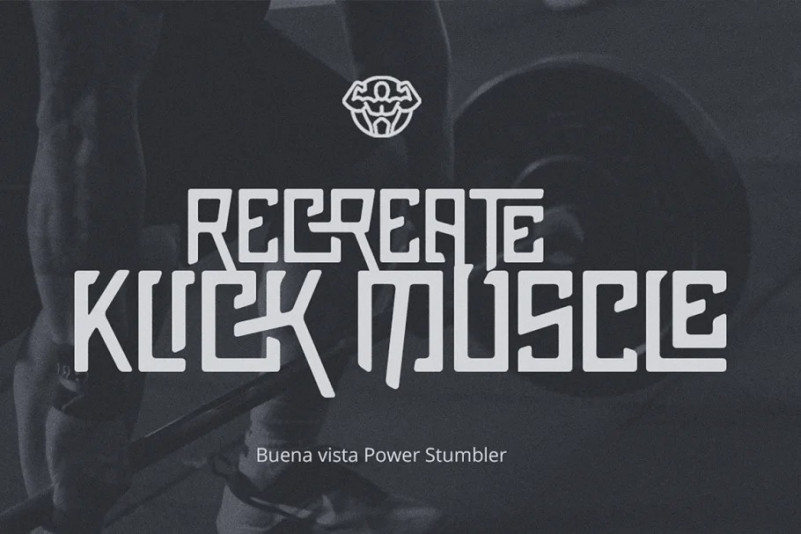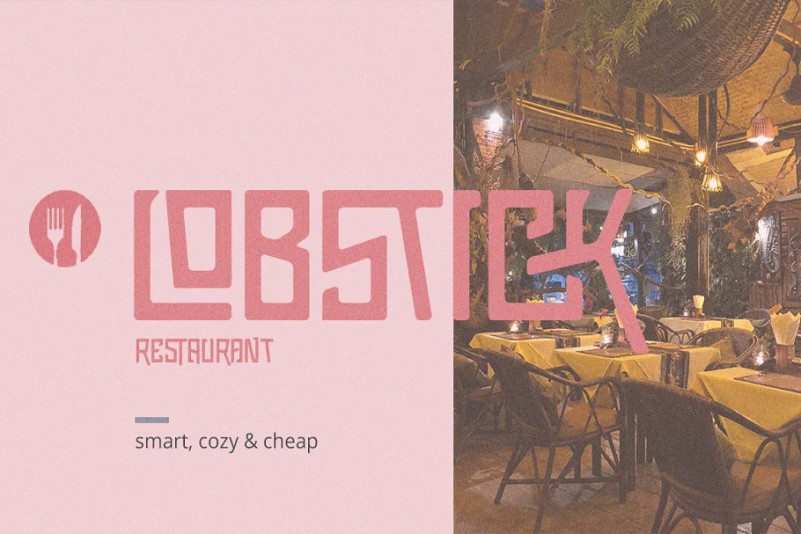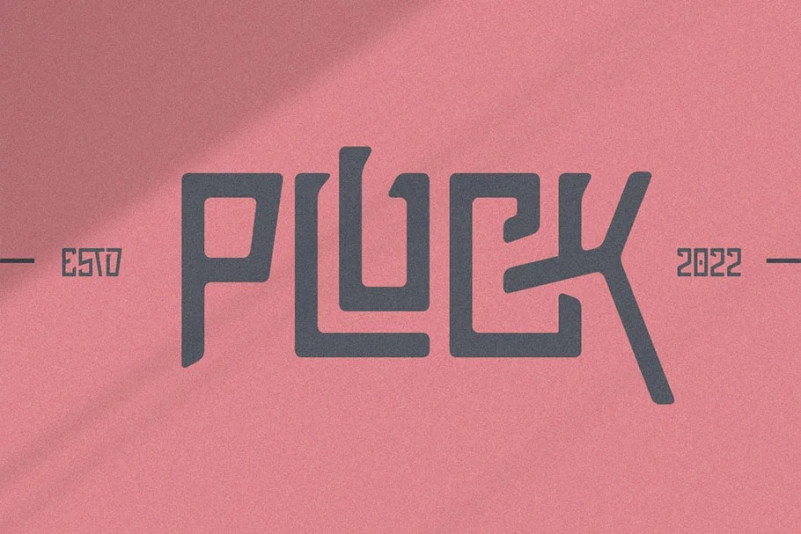
Shutter Speed Display Font
Shutter Speed is a bold, simple and adaptable display font. Get inspired by its unique charm, and turn any design project into a true standout!